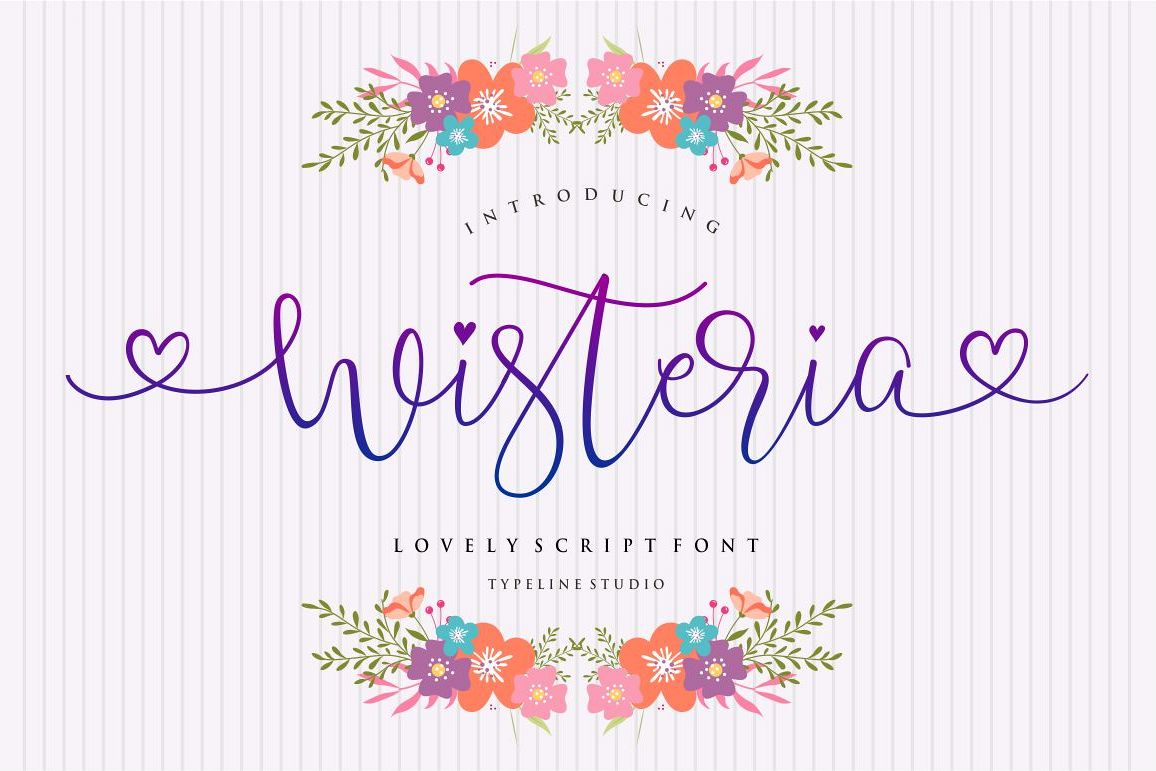
Wisteria Script
Wisteria Script is modern script font, every single letters have been carefully crafted to make your text looks beautiful. With modern script style this font will perfect for many different project ex: quotes, blog header, poster, wedding, branding, logo, fashion, apparel, letter, invitation, stationery, etc.
Wisteria Script including alternate glyph and beautiful swirl.